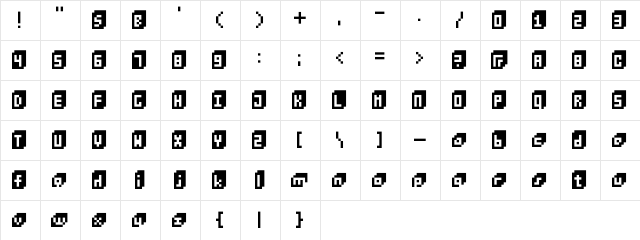
BitCube Regular
Design Context for BitCube Typeface
BitCube takes a measured approach to typography — its balanced proportions and neutral character make it a reliable workhorse for both digital and print work.